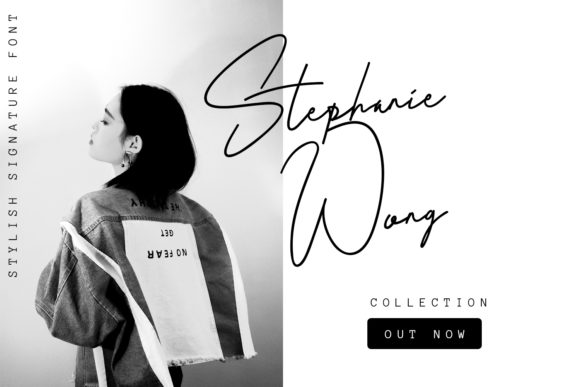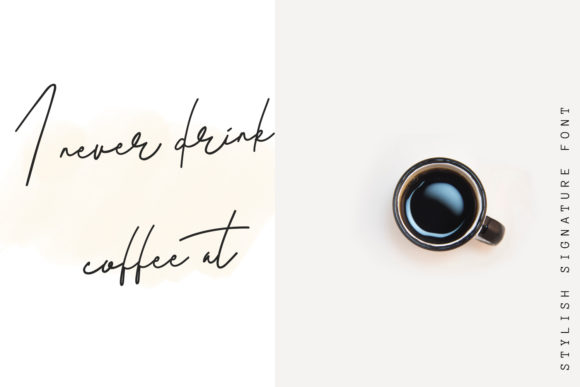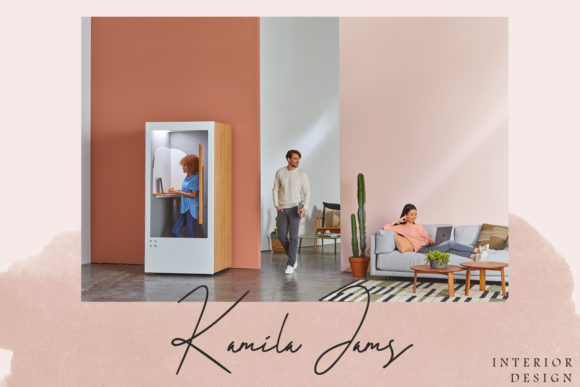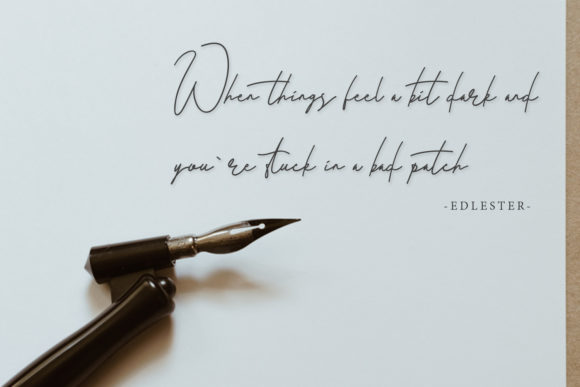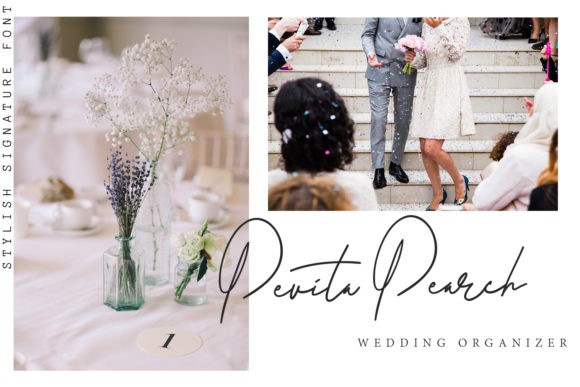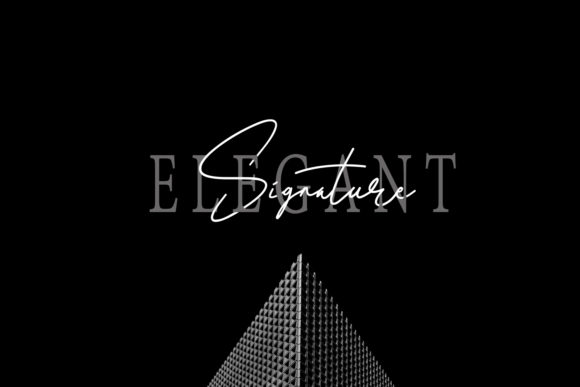
Dental Font: Elevate Your Designs with a Touch of Modern Charm
Dental is a light and charming signature font that will add a contemporary charm to any design project! If you’re a designer or crafter looking for a font that exudes elegance and sophistication, look no further than Dental Font. In this article, we’ll dive into the world of Dental Font, exploring its features, benefits, and uses, as well as provide tips on how to make the most of this beautiful font.
What is Dental Font?
Dental Font is a signature font designed to bring a touch of modern charm to your designs. With its light and airy feel, this font is perfect for adding a touch of elegance to any project. Whether you’re working on a logo, branding materials, or marketing collateral, Dental Font is sure to impress.
Key Features of Dental Font
- Light and Airy Feel: Dental Font has a light and airy feel that makes it perfect for designs that require a touch of elegance.
- Charming Signature Style: This font has a charming signature style that adds a personal touch to any design.
- Contemporary Charm: Dental Font has a contemporary charm that makes it perfect for modern designs.
- Easy to Read: This font is easy to read, making it perfect for body text and headings.
Benefits of Using Dental Font
So, why should you use Dental Font in your designs? Here are just a few benefits of using this beautiful font:
- Adds Elegance to Your Designs: Dental Font adds a touch of elegance to any design, making it perfect for luxury brands and high-end products.
- Versatile: This font is versatile and can be used in a variety of design projects, from logos and branding materials to marketing collateral and packaging.
- Easy to Pair: Dental Font is easy to pair with other fonts, making it perfect for designs that require a combination of fonts.
Uses of Dental Font
Dental Font is a versatile font that can be used in a variety of design projects, including:
- Logos and Branding Materials: Use Dental Font to create a logo or branding materials that exude elegance and sophistication.
- Marketing Collateral: This font is perfect for marketing collateral, such as brochures, flyers, and posters.
- Packaging: Use Dental Font to add a touch of elegance to your packaging designs.
- Signage: This font is perfect for signage, including store signs, directional signs, and more.
Tips for Using Dental Font
Here are a few tips for using Dental Font in your designs:
- Use it as a Headline Font: Dental Font is perfect for headlines and titles, so use it to add a touch of elegance to your designs.
- Pair it with Other Fonts: This font is easy to pair with other fonts, so experiment with different combinations to find the perfect look for your design.
- Use it in Combination with Images: Dental Font looks great in combination with images, so use it to add a touch of elegance to your designs.
In conclusion, Dental Font is a beautiful and versatile font that can add a touch of modern charm to any design project. With its light and airy feel, charming signature style, and contemporary charm, this font is perfect for designers and crafters looking for a font that exudes elegance and sophistication. Whether you’re working on a logo, branding materials, or marketing collateral, Dental Font is sure to impress.